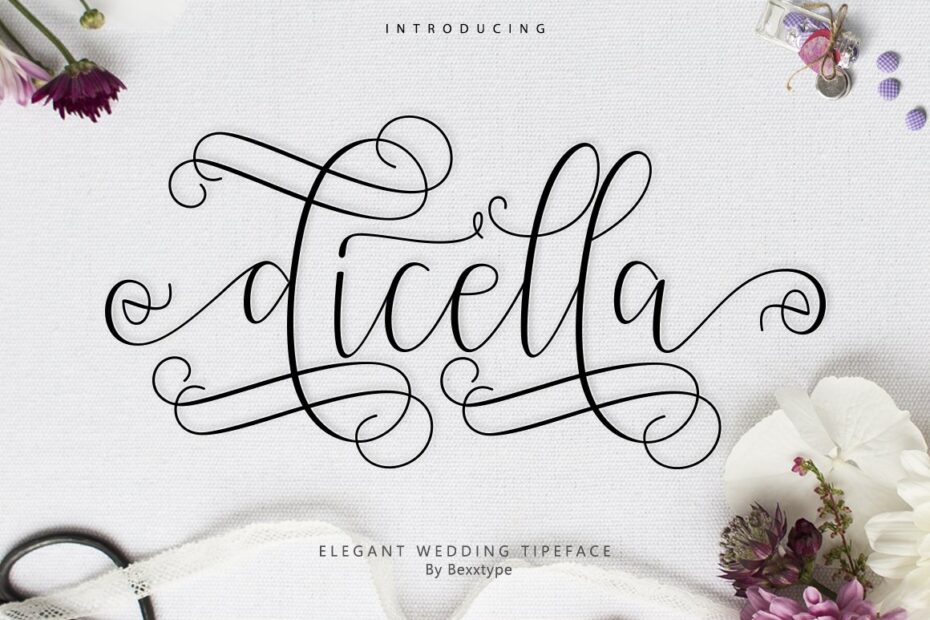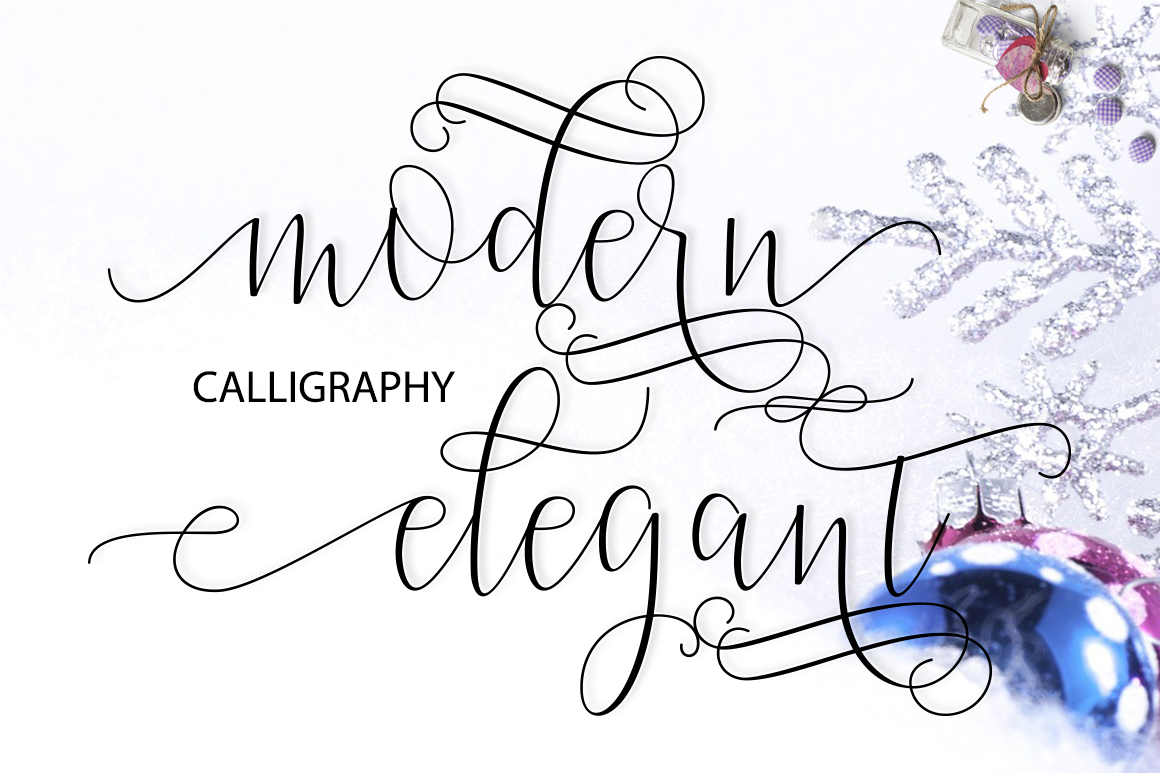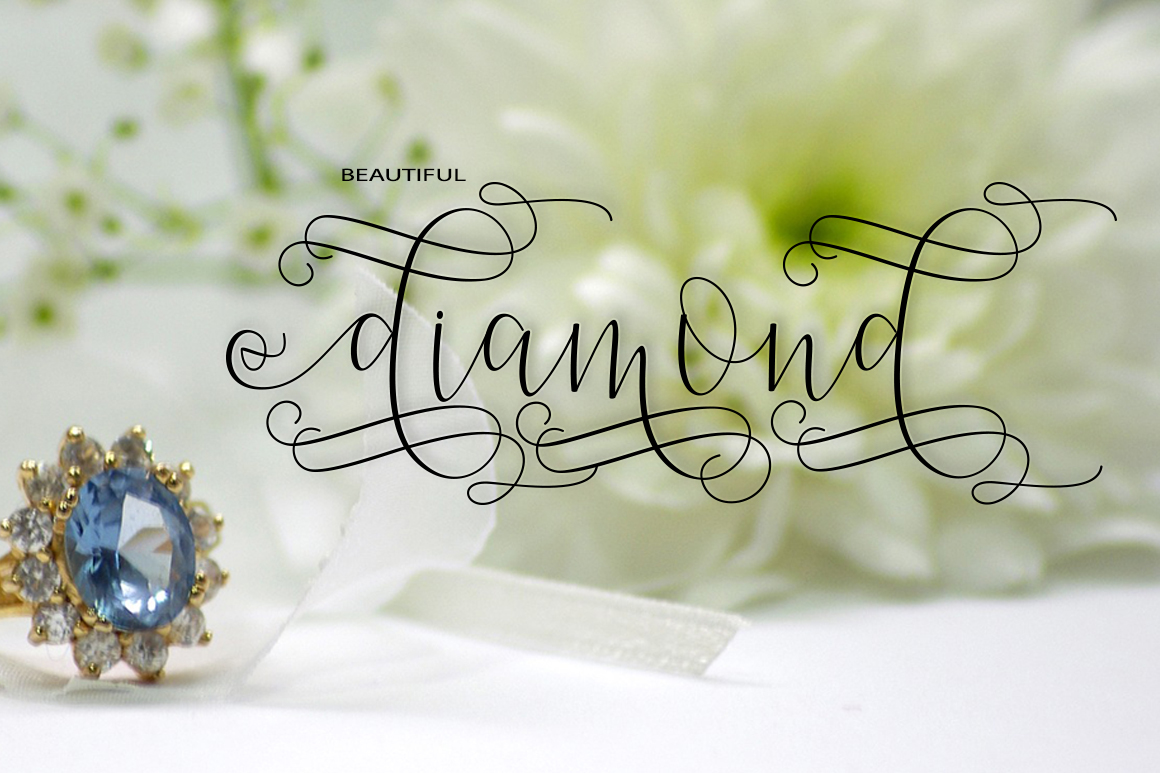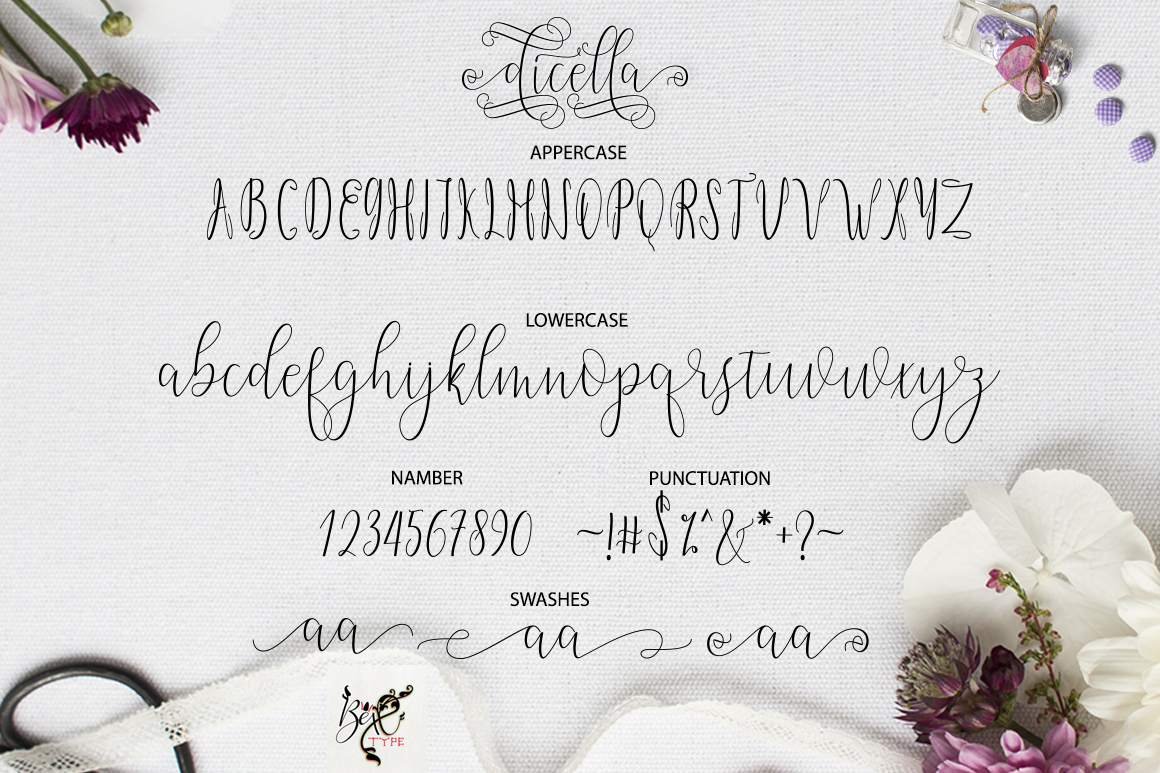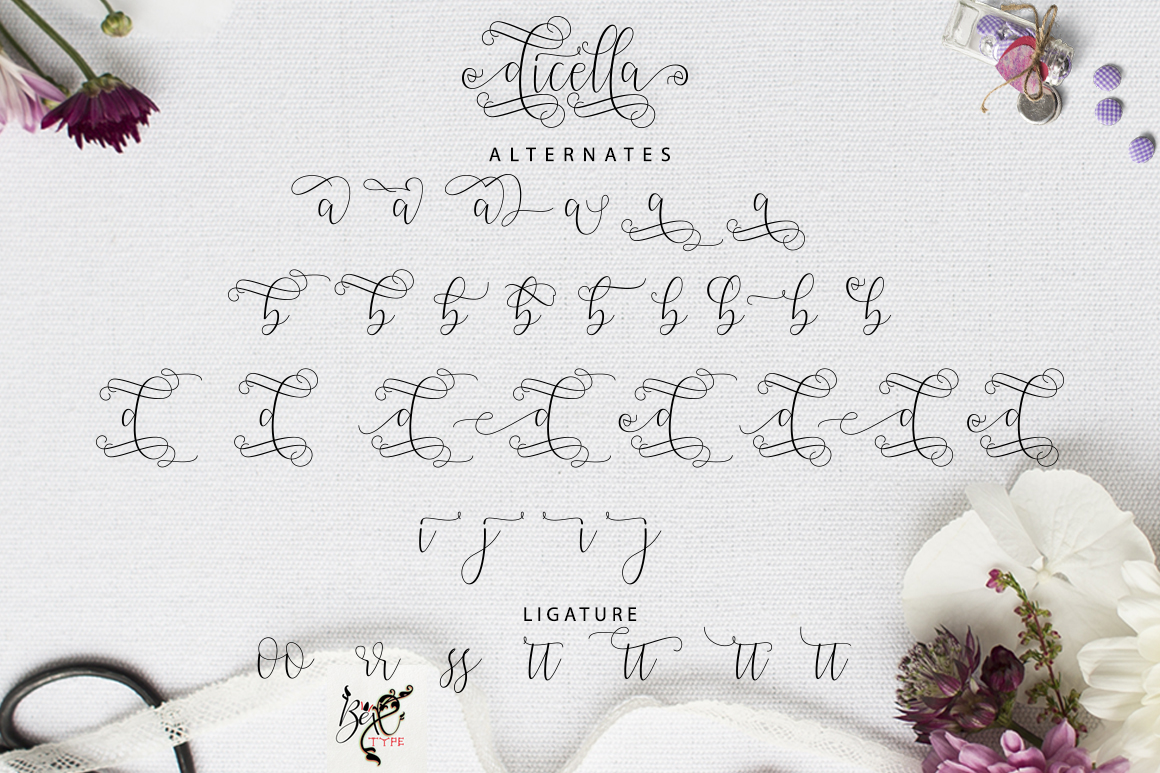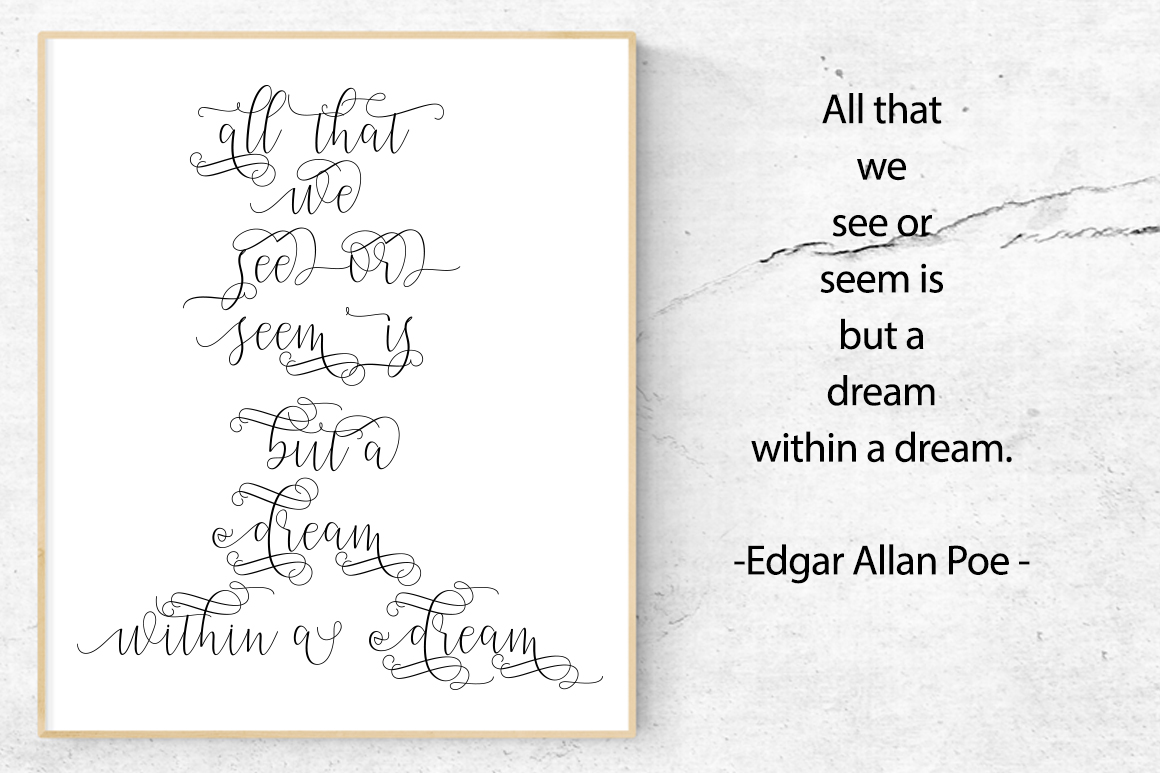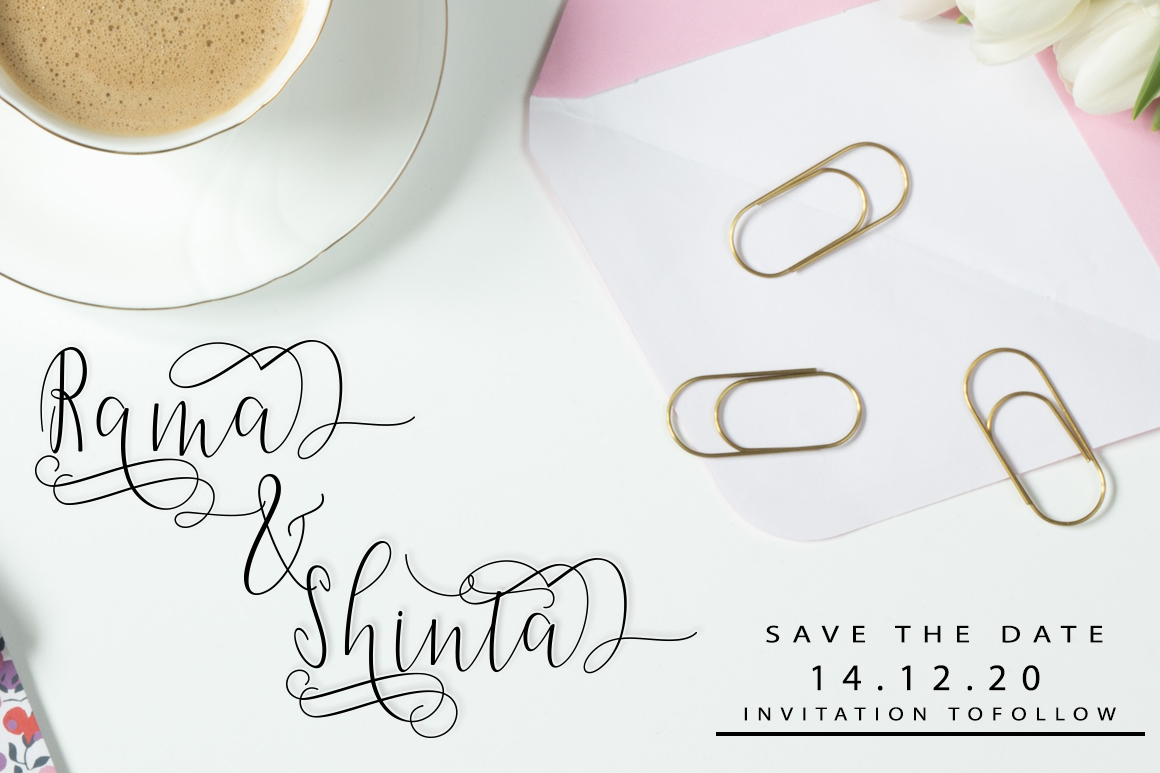
Unleash Your Creativity with Dicella Font
Have you ever been in a creative flow, typing away at your computer, and suddenly the perfect phrase or word comes to mind? It’s as if the words are flowing effortlessly onto the page. That’s exactly what happens when you have the right tools at your fingertips, and the Dicella Font is one such tool that can elevate your design game.
With over 600 unique glyphs, Dicella Font is a modern script that’s designed to add a touch of elegance to your designs. Its stunning swashes will allow you to create custom designs that stand out from the crowd. Whether you’re a graphic designer, a typographer, or simply someone who loves experimenting with fonts, Dicella Font is a valuable addition to your toolkit.
By incorporating the Dicella Font into your designs, you’ll be able to add a level of sophistication and flair that will set your work apart from others. Its versatility and unique features make it an essential tool for designers who want to push the boundaries of creative expression.
Dicella Font Key Features
- Unique Characteristics: The font features a unique blend of modern and vintage elements, making it perfect for creating eye-catching headlines and titles.
- Kerning and Ligatures: The font includes advanced kerning and ligature features, ensuring that text sets up smoothly and looks professional.
Dicella Font Review
As a designer, I was excited to try out the Dicella font. Overall, I think it has some great qualities, but it also has a few limitations.
- Unique Design: Dicella has a distinctive, modern aesthetic that sets it apart from more common fonts.
- Legibility: The font is highly legible, making it suitable for a wide range of applications, from body text to headlines.
- Font Size Limitations: I noticed that Dicella can become quite pixelated at smaller font sizes, which may not be ideal for mobile applications or small text.
- Lack of Character Variations: While the font has a clear, consistent style, it can feel a bit one-dimensional, lacking the nuance of more complex fonts.
While Dicella has its flaws, I still think it’s a solid choice for designers who want a modern, clean font that’s easy to read. With a bit of careful application, it can add a touch of sophistication to any project. However, it may not be the best fit for applications that require extreme flexibility or detailed text.
Getting the Most Out of Dicella Font
To get the most out of Dicella Font, consider the following tips:
– Use Dicella Font for titles and headings to add a touch of elegance.
– Pair Dicella Font with a sans-serif font for body text to create a clean and modern look.
– Experiment with different font sizes and colors to create visual interest.
Dicella Font is commonly used for:
– Designing business cards and resumes.
– Creating social media graphics and advertisements.
– Developing marketing materials and brochures.